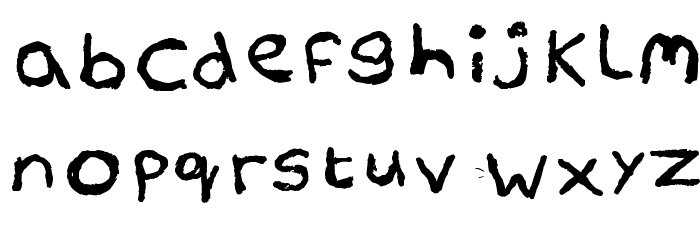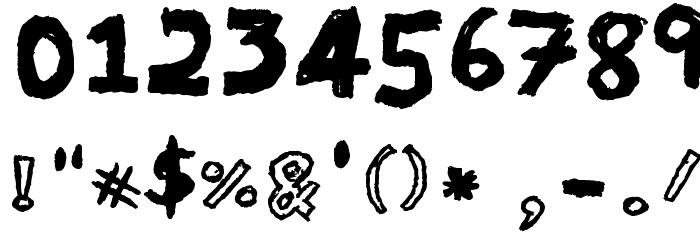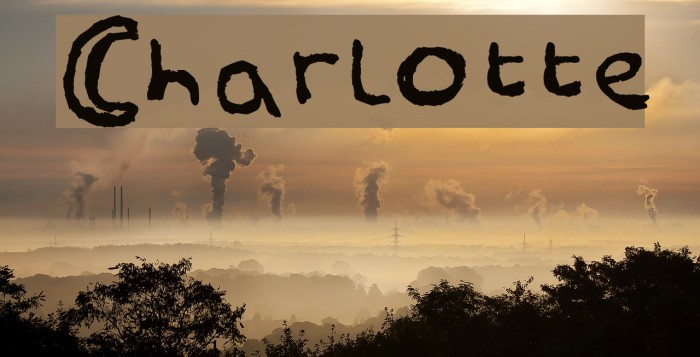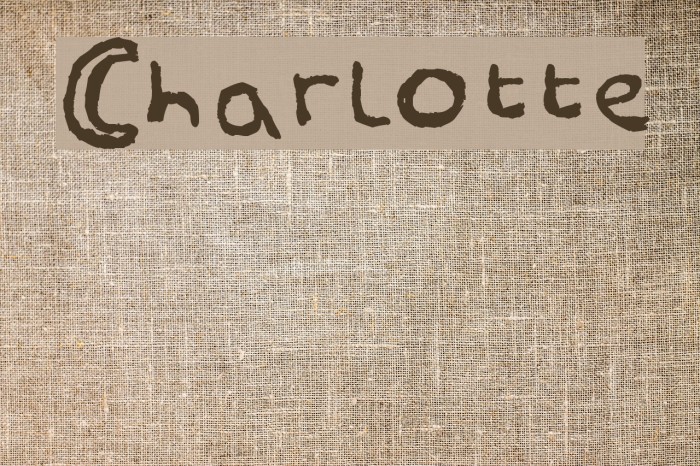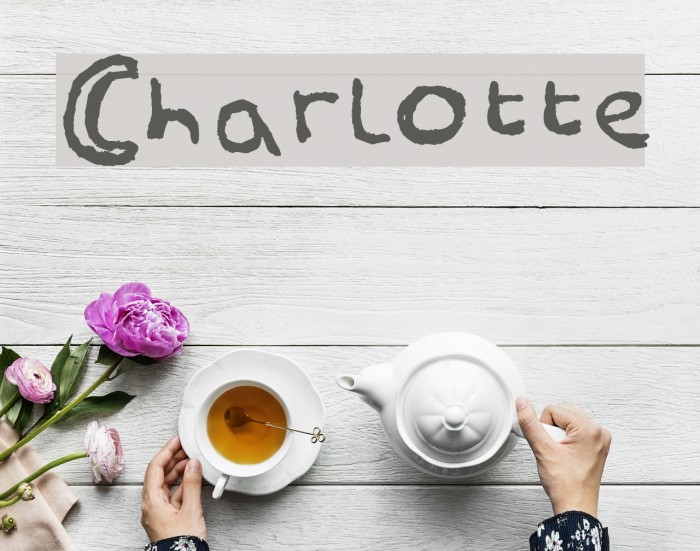
Charlotte Font
This font features a playful and hand-drawn aesthetic, characterized by its uneven strokes and irregular shapes. The letters have a casual, almost whimsical feel, with each character appearing as if it was sketched by hand. The uppercase and lowercase letters maintain a consistent style, with a slightly rough texture that adds to the font's charm. The numbers and special characters follow the same design principles, ensuring a cohesive look across all elements. This font's unique style makes it stand out, offering a creative and artistic vibe.
A playful, hand-drawn font with uneven strokes and a whimsical feel.
- Proposed Projects: Ideal for children's book illustrations, creative posters, and artistic branding projects.
- Use Case: Logos, Headlines, Artistic projects